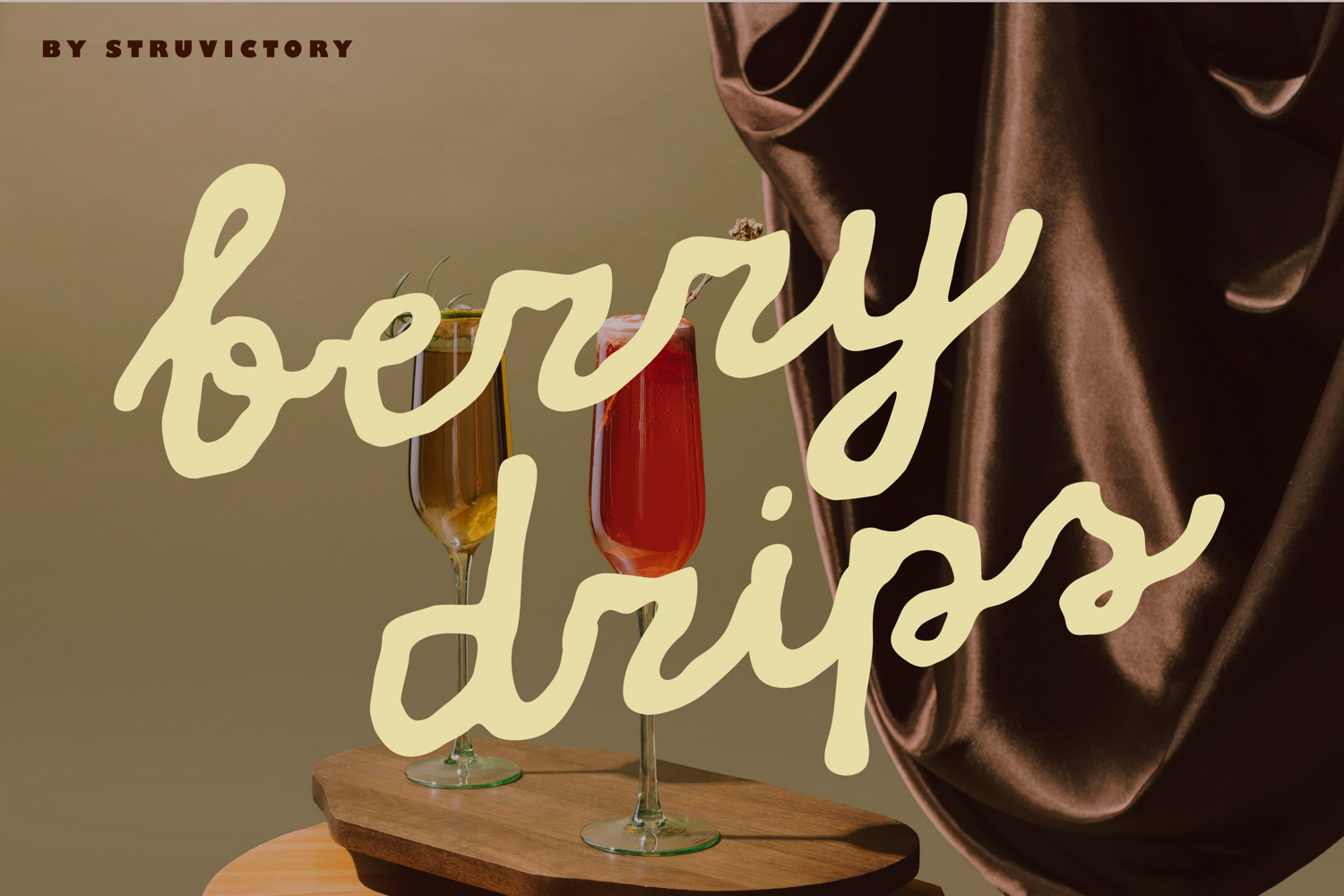
Berry Drips Messy Handwritten Script
BerryDripsScript
Berry Drips is a nostalgic logo script with delicate grunge details: smooth connections, subtle drips, and natural imperfections that give it a raw, handmade feel. It’s designed for bold branding, packaging, editorial headlines, and anything that needs a mix of elegance and edge. Perfect for fashion campaigns, coffee shops, wine labels, or nostalgic posters, this script font brings a modern twist to messy beauty and makes your words stand out with personality.